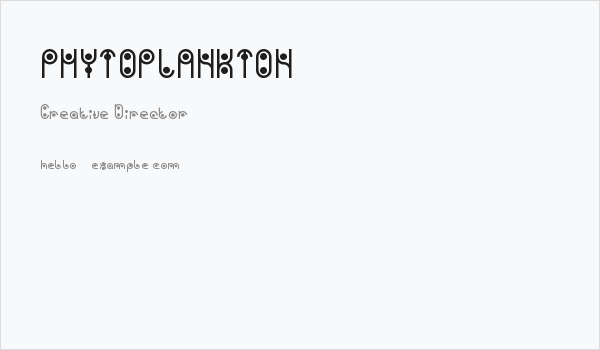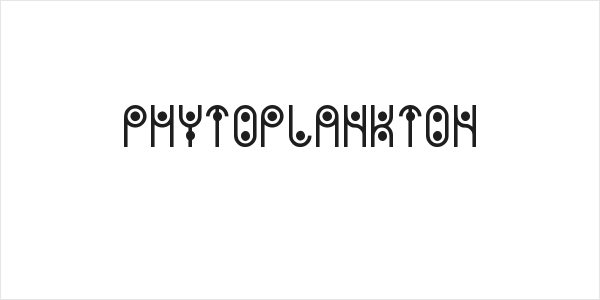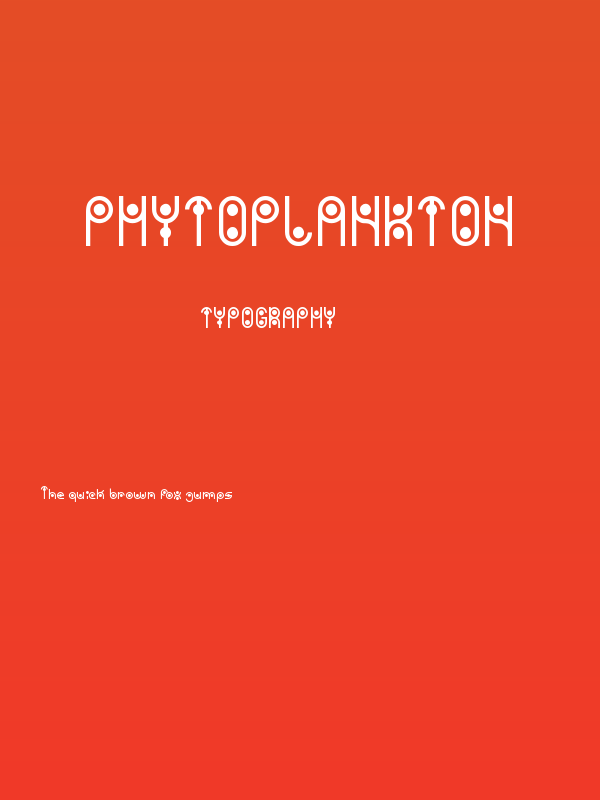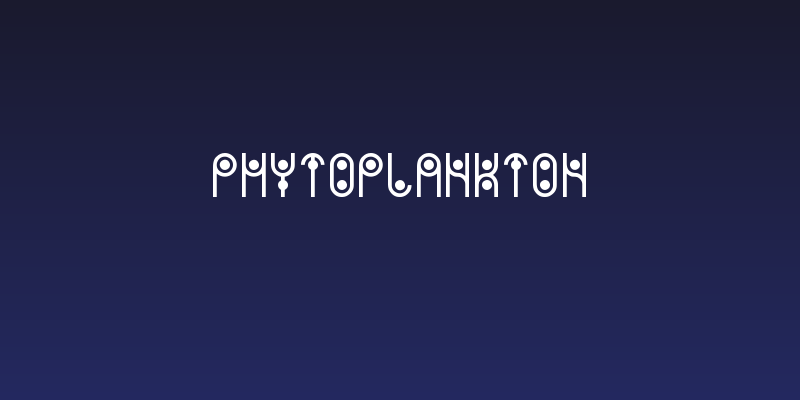
PHYTOPLANKTON Font
PHYTOPLANKTON Description
This font features a unique and modern design with a futuristic flair. The characters are composed of bold, geometric shapes with a consistent stroke width, giving it a clean and structured appearance. The uppercase letters exhibit a playful use of circles and lines, creating a sense of movement and dynamism. The lowercase letters maintain this geometric style, with some characters incorporating circular elements that add to the font's distinctive look. The numbers and special characters follow the same design principles, ensuring a cohesive and visually appealing typeface.
| Proposed Projects | Ideal for tech-related branding, futuristic posters, and innovative product packaging. |